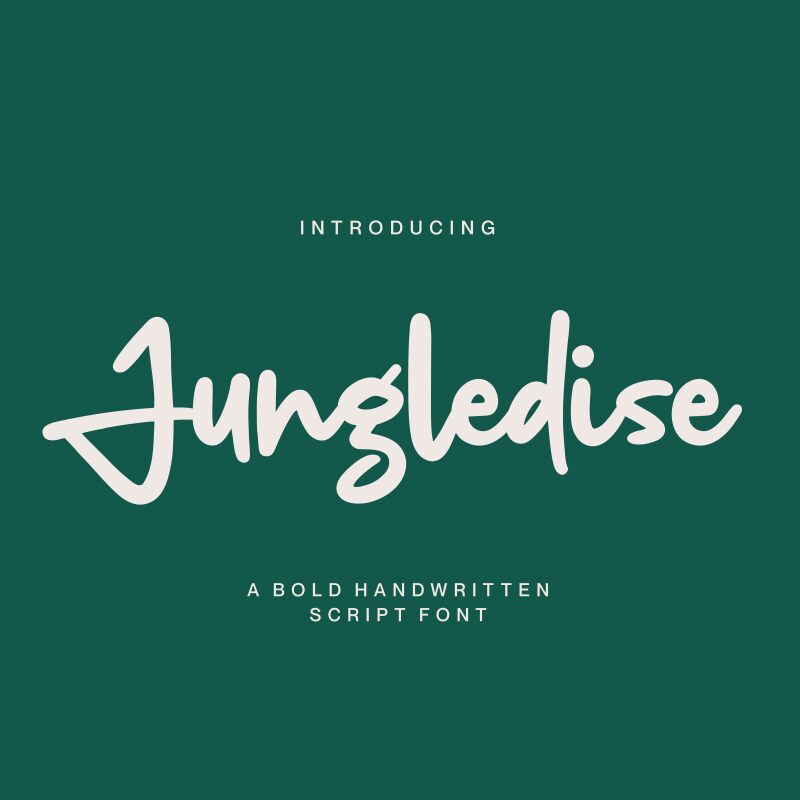
Jungledise
Jungledise is a bold and stylish handwritten font designed by Allouse.Studio. Its unique letterforms add personality to any project—from logos, branding, advertising, product packaging to stationery designs, website headers and more. With its lively yet classic look, Jungledise is perfect for adding a special touch to any creative project!